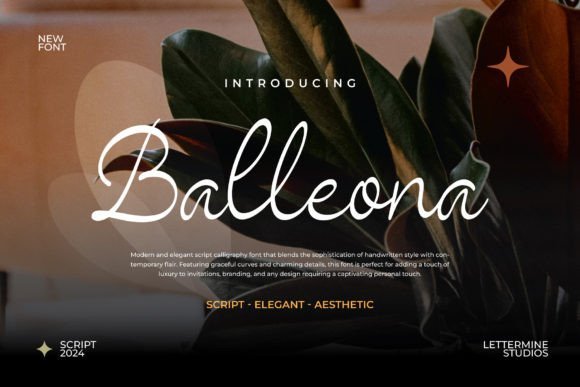
The Perfect Script Font for Your Next Design Project
Have you ever been stuck in a creative rut, searching for the perfect font to bring your design to life? It’s a feeling we’ve all experienced at some point, but what if I told you there’s a font that can take your designs to the next level? For me, it was a wedding invitation design that sparked the search for the perfect script font. I wanted something elegant, sophisticated, and timeless.
That’s when I discovered the Balleona Font Font – a stunning script font that exudes style and refinement. With its beautiful, handwritten feel, Balleona Font Font is perfect for a wide range of design projects, from wedding invitations to business cards and logos. As a designer, I can attest to the value of having a versatile font like Balleona Font Font in your arsenal.
Balleona Font Font Key Features
- Unique Characteristics: Elegant, cursive script with a touch of modernity and sophistication
Balleona Font Review
Overall, I was quite impressed with the Balleona Font. It’s a beautiful, elegant script font that’s perfect for adding a touch of sophistication to your designs. ✨
- Beautiful, flowing script style
- Perfect for invitations, wedding designs, and other elegant projects
- Works well in both uppercase and lowercase
- Has a unique, hand-drawn feel that adds character to your designs
- Not ideal for large blocks of text, as it can be difficult to read
- Might not be suitable for modern or edgy designs, as it’s quite traditional and elegant
- Some characters may not be as perfectly formed as others, which can affect the overall quality of your design
Overall, I think the Balleona Font is a great choice for designers who want to add a touch of elegance to their projects. While it may not be suitable for every design, it’s a beautiful and versatile font that’s sure to impress.
The Balleona Font Font is ideal for creating elegant and sophisticated designs, such as:
- Book covers and editorial designs.
Remember to adjust the font size and style according to the design requirements and balance it with other design elements to create a visually appealing composition.
Alternatives to Balleona Font Font
Playfair Display is a luxurious and elegant serif font, perfect for high-end branding and advertising. It features intricate details and a classic feel, making it ideal for creating a sense of sophistication and refinement.
Compared to Balleona Font Font, Playfair Display is more ornate and traditional, while Balleona Font Font is more modern and minimalist. Playfair Display is suitable for use in headings and titles, whereas Balleona Font Font is better suited for body text and paragraph content.
Montserrat is a geometric sans-serif font, designed for urban environments and modern designs. It’s highly legible and versatile, making it suitable for a wide range of applications, from signage to digital interfaces.
Compared to Balleona Font Font, Montserrat is more geometric and modern, while Balleona Font Font is more minimalist and simple. Montserrat is better suited for use in digital interfaces and signage, whereas Balleona Font Font is more suitable for print materials and branding.
Great Vibes is a modern script font, perfect for creating a sense of elegance and sophistication. It’s highly customizable and versatile, making it suitable for a wide range of applications, from branding to packaging.